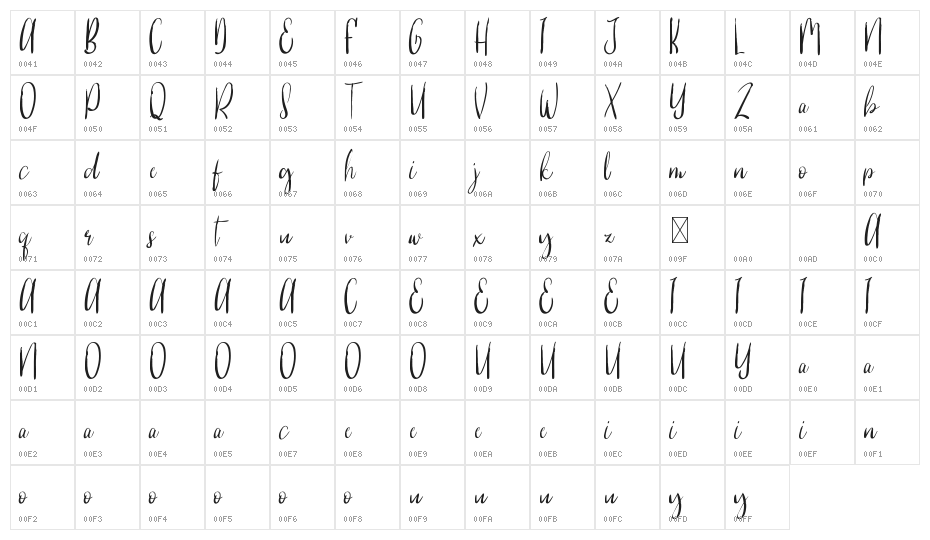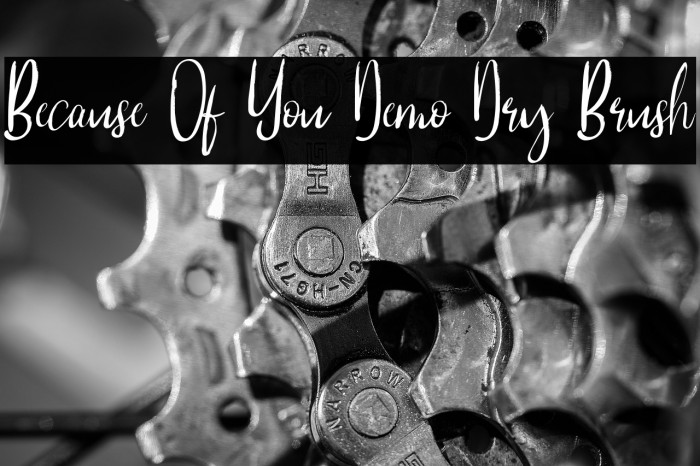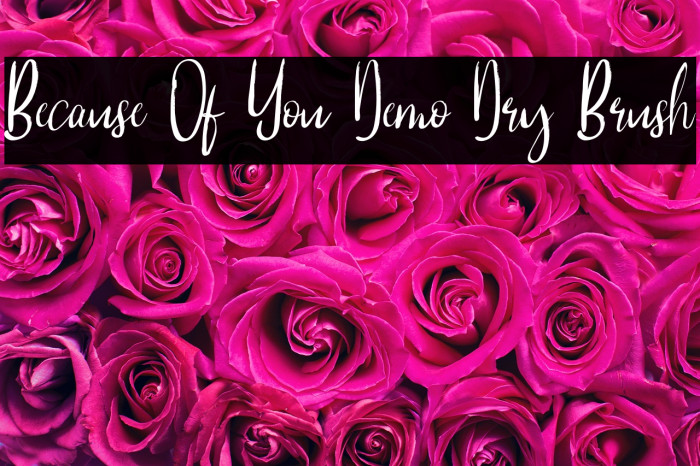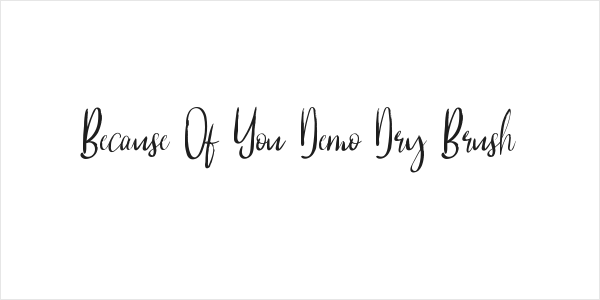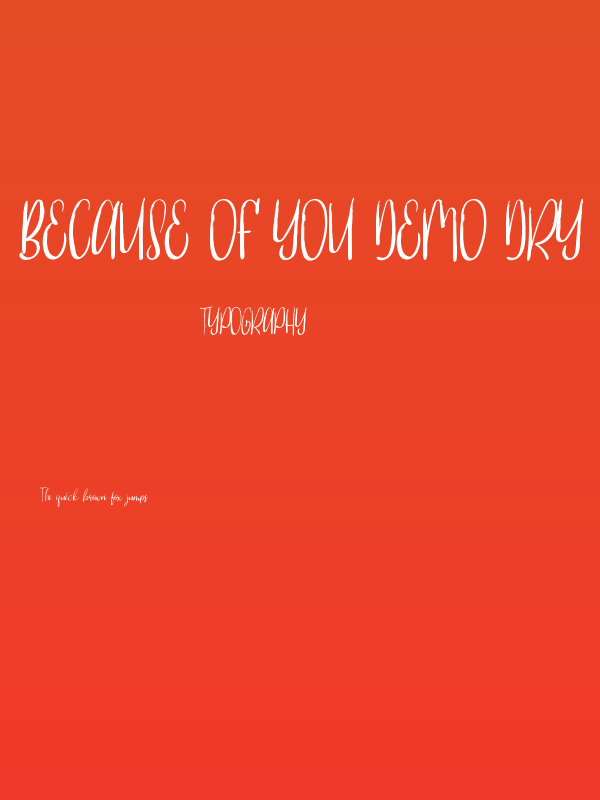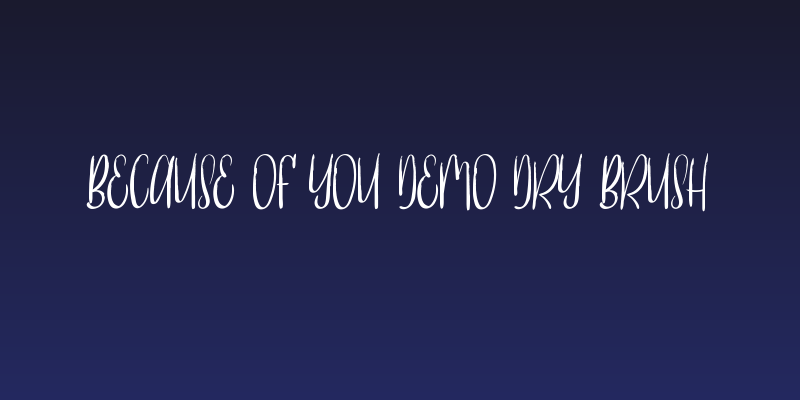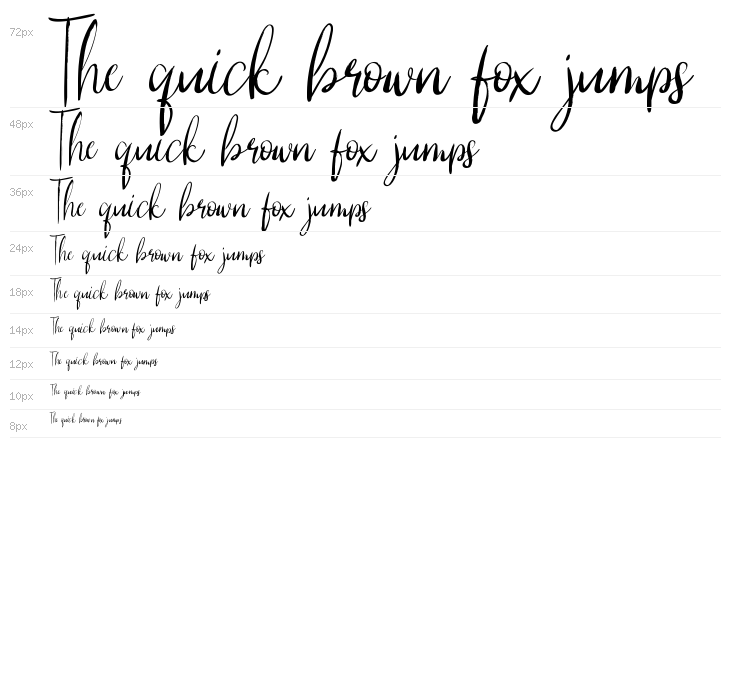
Because Of You Demo Dry Brush Font
Because Of You Demo Dry Brush Description
This font features a dynamic and expressive style, characterized by its brush-like strokes that convey a sense of movement and energy. The uppercase letters are tall and narrow, with varying stroke widths that create a lively rhythm. The lowercase letters maintain a consistent flow, with elegant curves and loops that enhance its handwritten appeal. The numbers and special characters are crafted with the same attention to detail, ensuring a cohesive look throughout. This font's dry brush effect gives it a textured appearance, adding depth and personality to any design.
| Overall Style | Modern, Artistic |
| Proposed Projects | Ideal for creative projects such as posters, invitations, branding, and packaging where a bold, artistic touch is desired. |